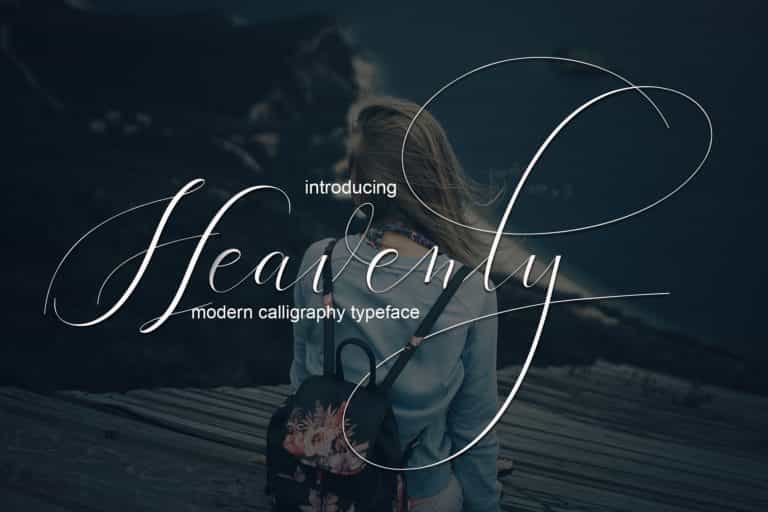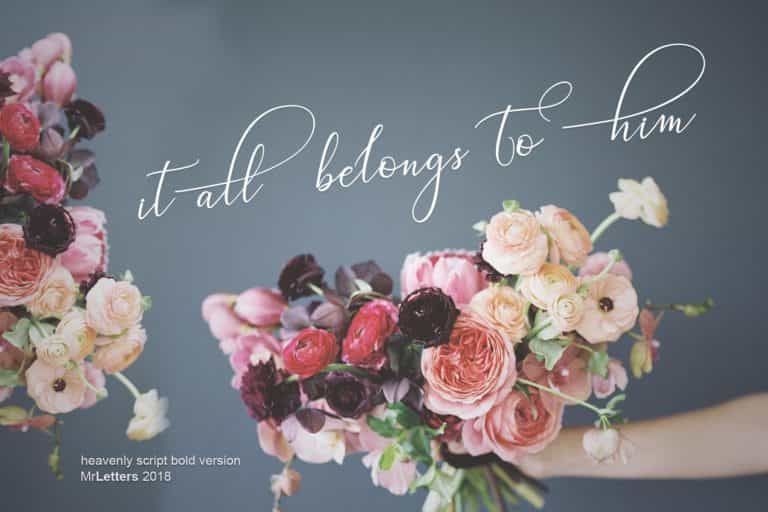
Discover Heavenly Font, part of the Calligraphy Handwritten collection—a versatile and unique font perfect for adding a personal touch to your projects. Download it for free and enjoy crafting designs with style, from invitations to social media posts. This font is available exclusively for personal use, giving you the freedom to create without limits. Unlock your creativity with Heavenly Font today!
Introduce our new font, Heavenly Font. It is a contemporary calligraphic font with a kind of cool handwriting style, great for your different design need, branding, wedding event, magazine, mugs, business card and many more.